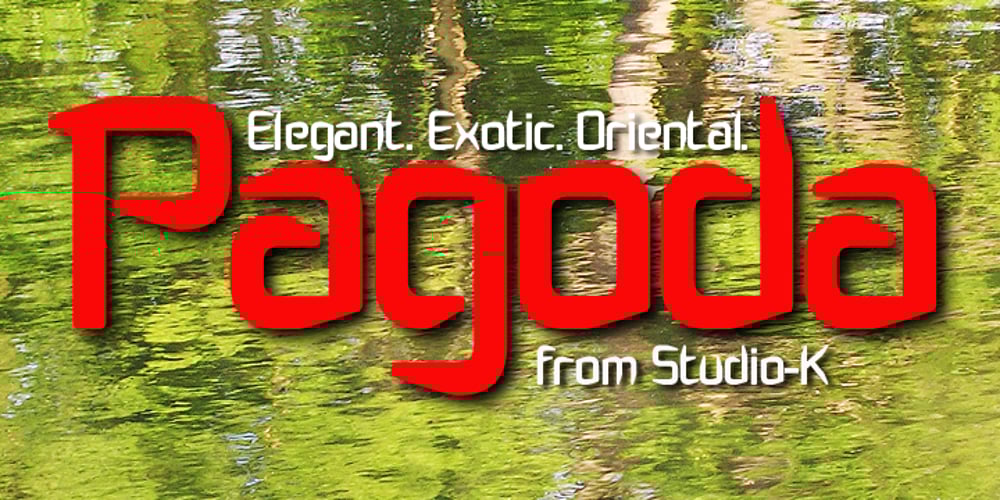
Pagoda Font Family was designed by Keith Tricker and published by Studio K. Pagoda contains 4 styles and family package options. This display font has an oriental character reminiscent of brush stroke calligraphy and all things Japanese. My original working title for this font was ‘Spanner’, because the lower case ‘c’, with which the design began, looked rather like the head of a spanner. I originally had in mind something more mechanical, but as it evolved and developed the font itself obviously had other ideas!